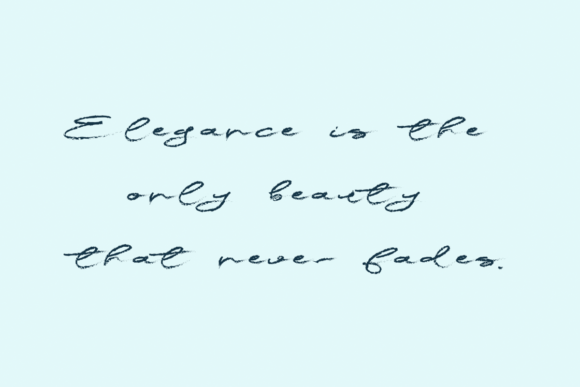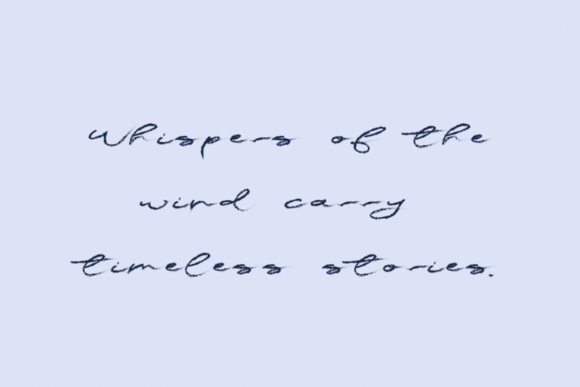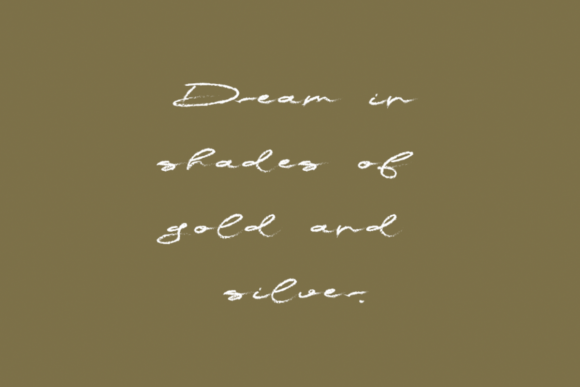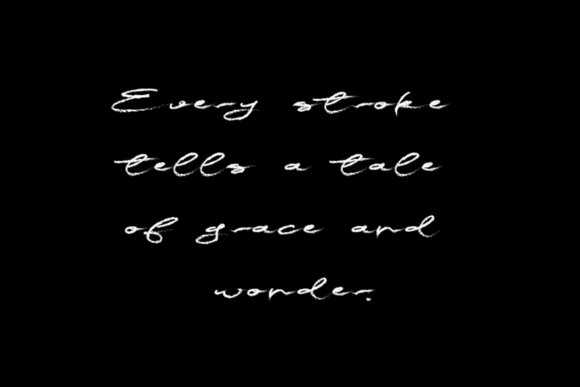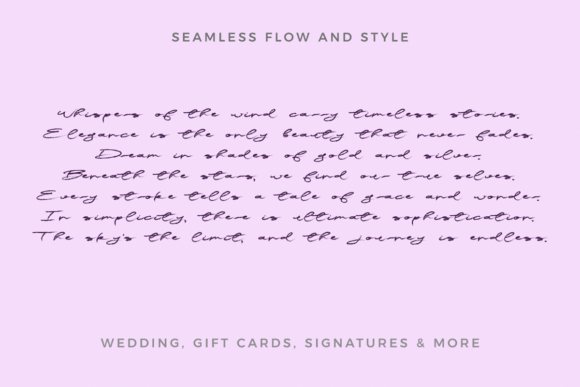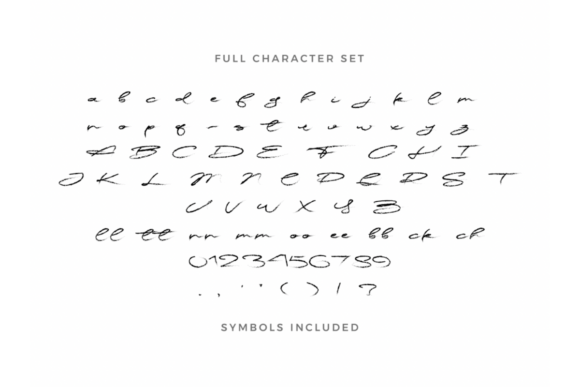
Introduction to Coldest Font
Introducing Coldest, a distinct handwritten script font that enchants with its lovely handlettering.
This distinctive blend of elegance and charm breathes life into your text, riding the fine line between classic calligraphy and contemporary typeface design Elevate your projects to new aesthetic heights with Coldest, the personification of creativity and artistry encoded into each character.
Key Features of Coldest Font
Why Choose Coldest Font?